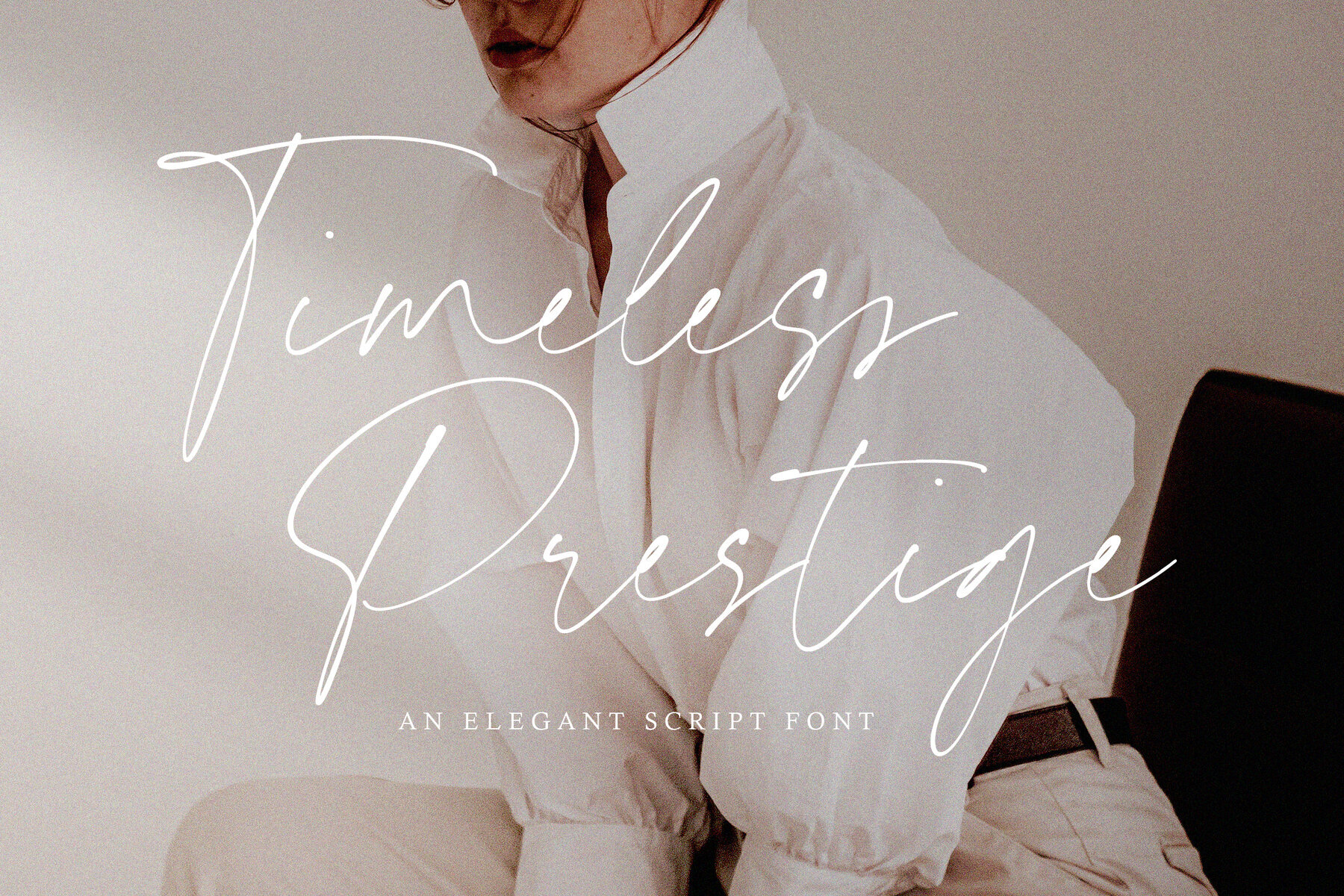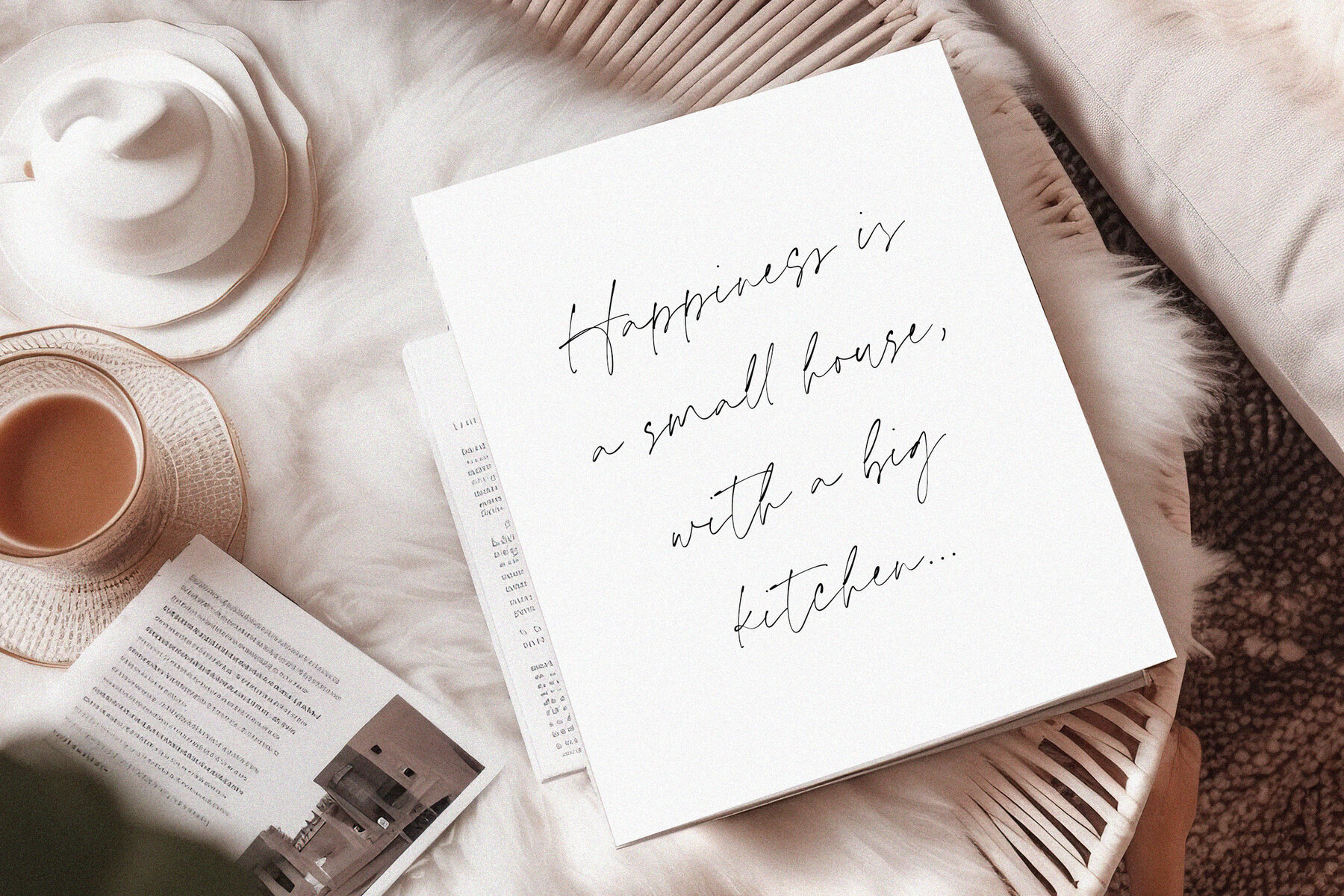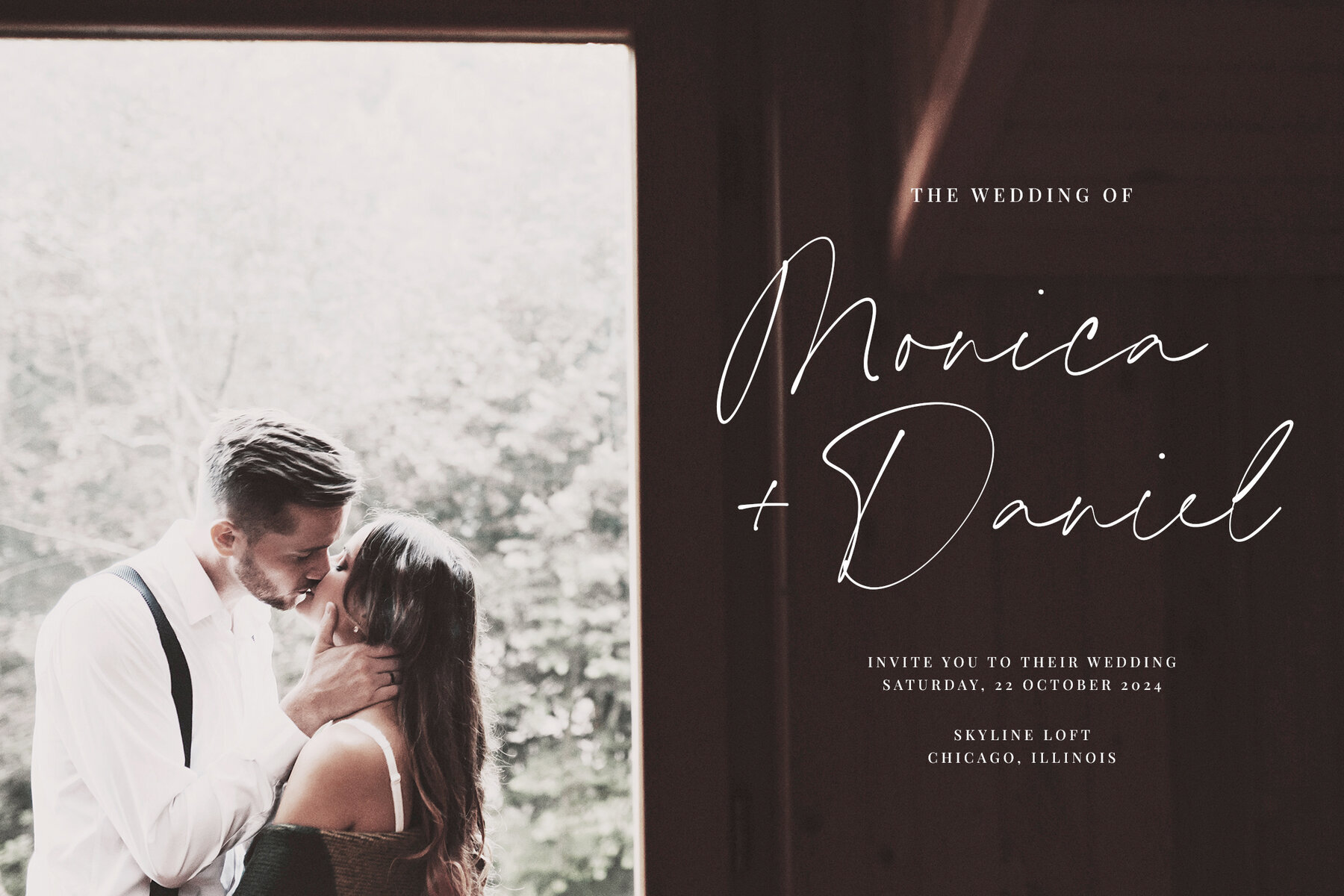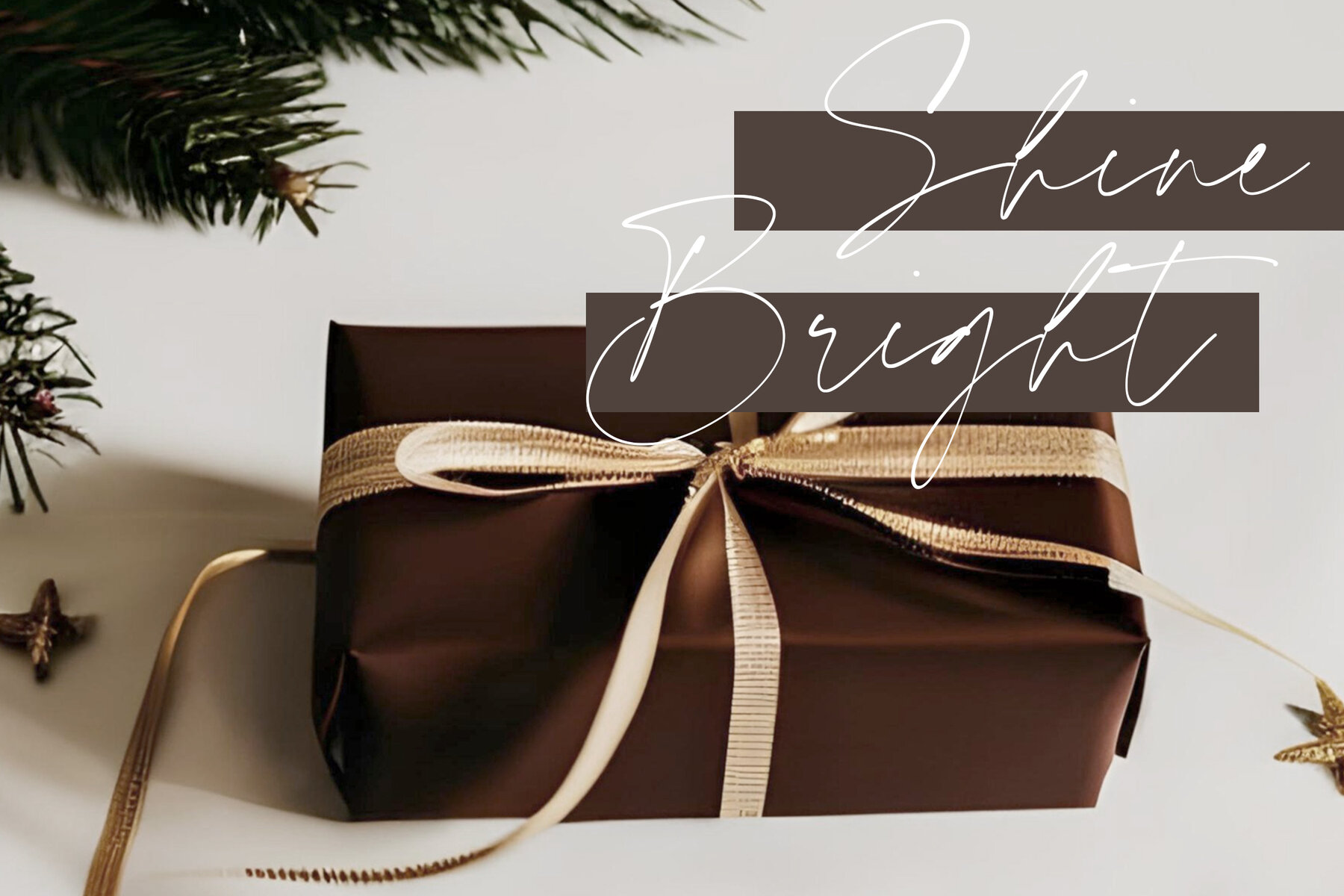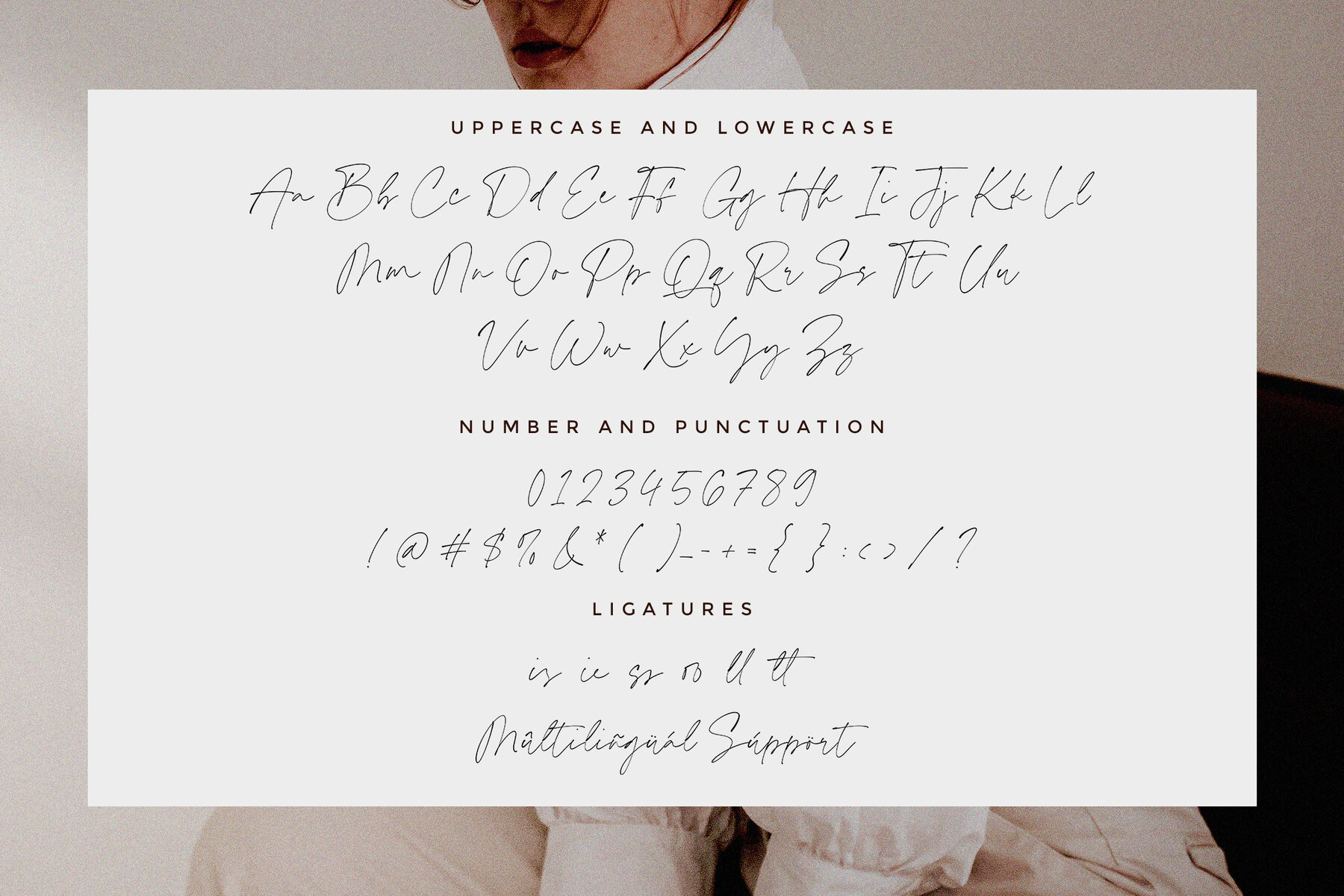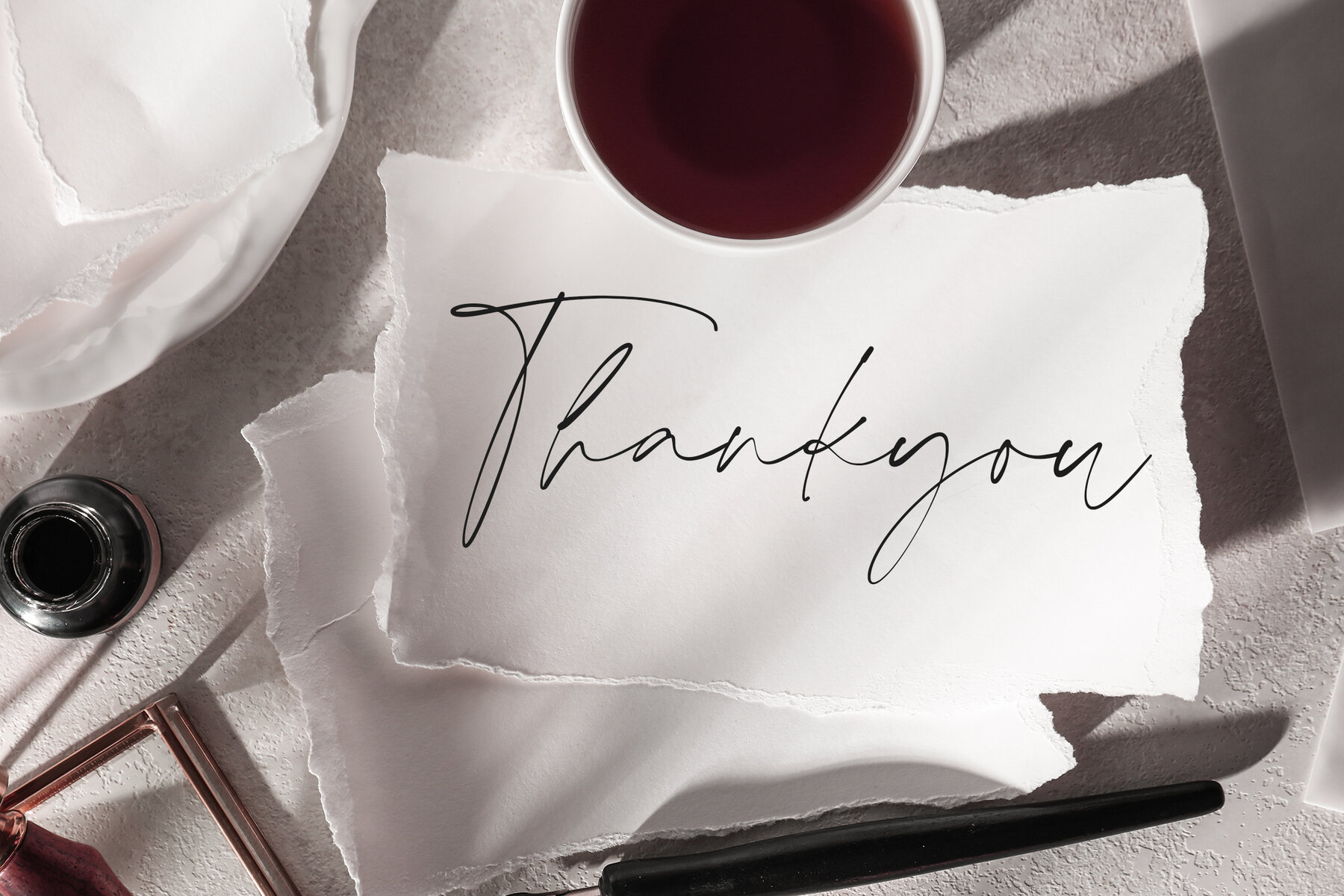
Timeless Prestige Font
Timeless Prestige
Timeless Prestige is an elegant script font that exudes modern sophistication and freshness, perfect for infusing a warm, inviting feel into your projects. Ideal for product packaging, branding, magazines, social media, weddings, and various other creative applications, Timeless Prestige enhances any text with its stylish and refined appearance. The font's versatility makes it an excellent choice for designers aiming to convey elegance and charm through typography.
This font features a comprehensive set of options including ligatures, stylistic alternates, multilingual support, and a full set of standard alphabet and punctuation. These elements allow for customizable and distinctive designs, catering to diverse linguistic needs and creative preferences. Utilize Timeless Prestige to bring a unique and polished touch to your design projects, ensuring your work stands out with its graceful appeal.